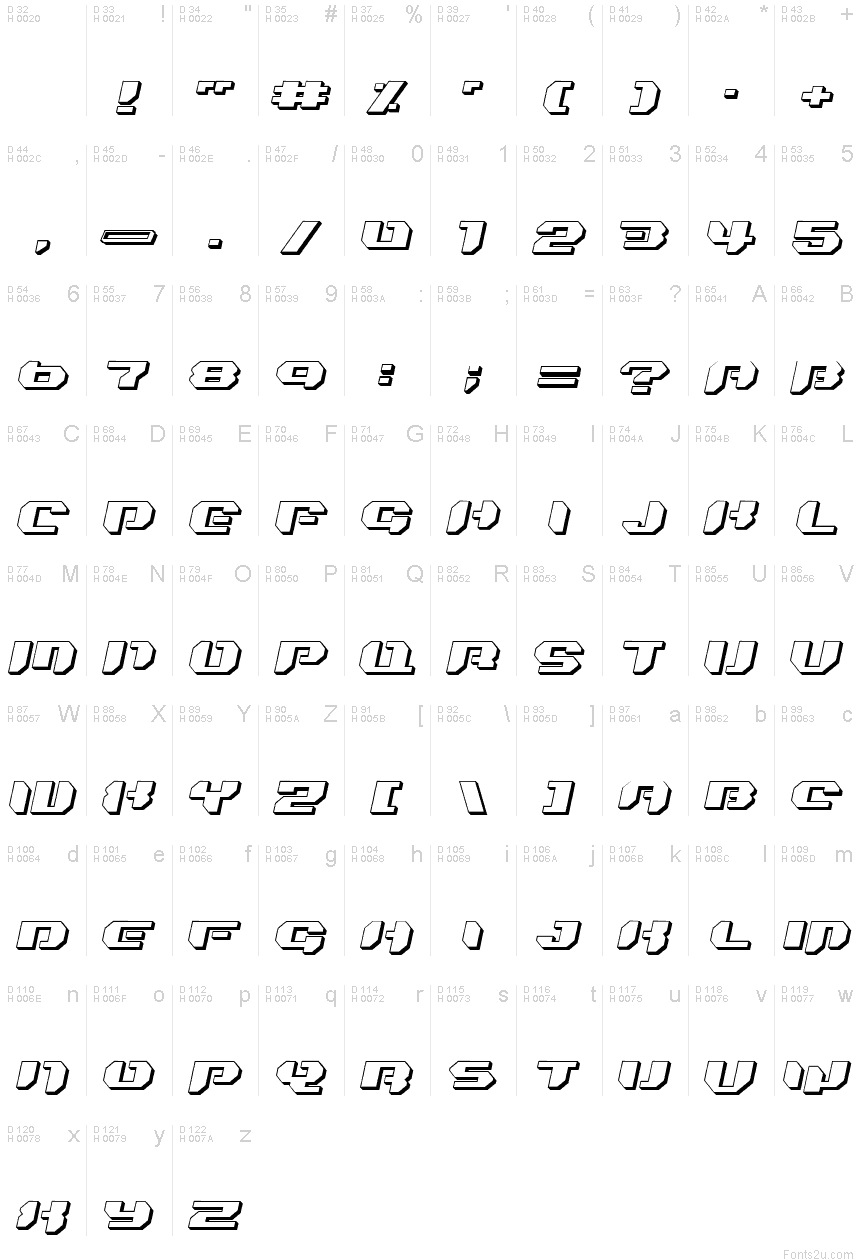
Bionic Kid Slanted 3d
Bionic Kid Slanted 3d font by Jakob Fischer of PizzaDude is a free techno typeface that looks like it was ripped from a comic-book arcade cabinet. Each character leans forward with a bold slant, chunky outlines, and a solid shadow that pops off the page like plastic toy bricks. The angles are sharp but playful, giving your text that racing, turbo-charged energy without feeling cold or mechanical.
Using Bionic Kid Slanted 3d, you can crank up the fun on game logos, kids’ book covers, STEM camp posters, toy packaging, birthday invites, and YouTube thumbnails. This free font shines at big sizes where the 3D edges and slant can really punch through a busy layout. Pair it with a clean, neutral sans-serif for smaller supporting text so the bionic letters stay in the spotlight.